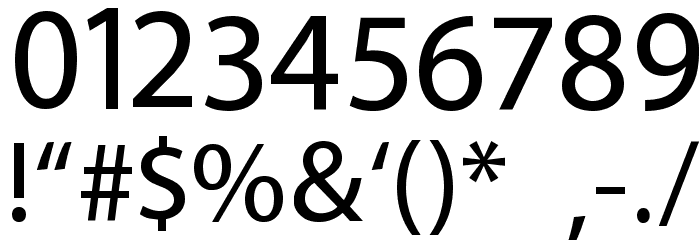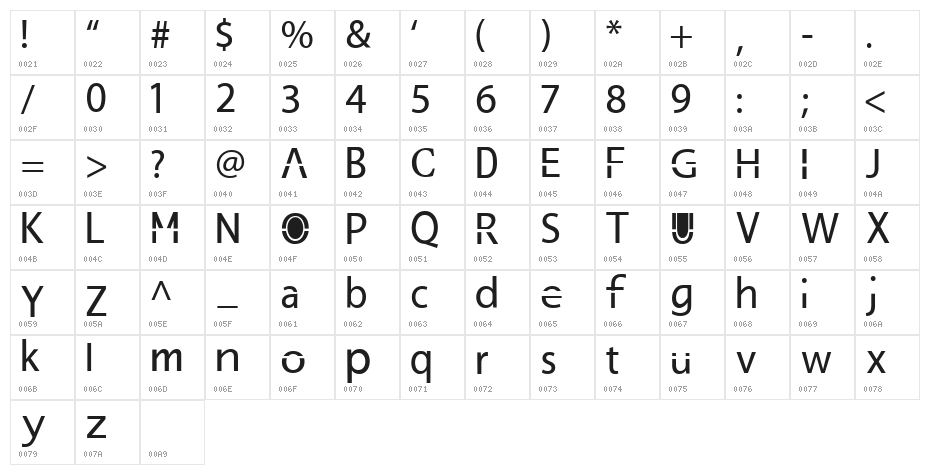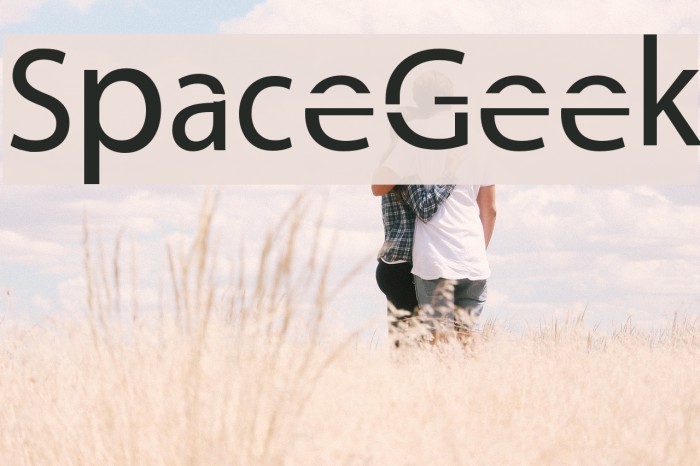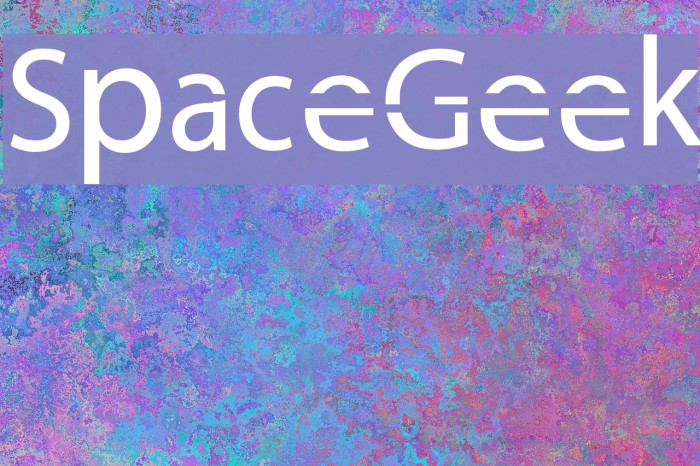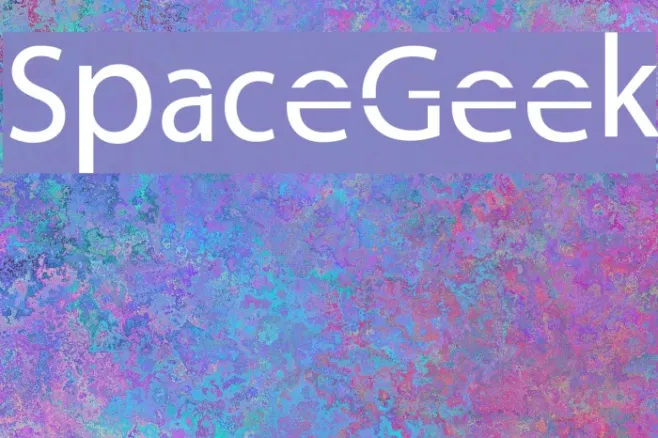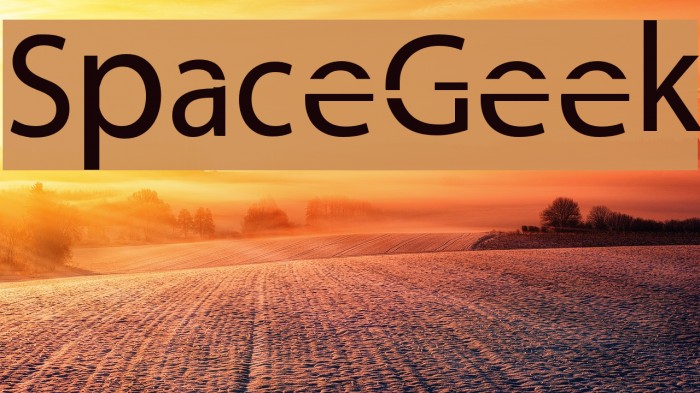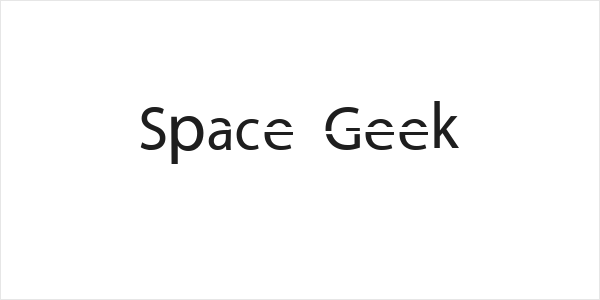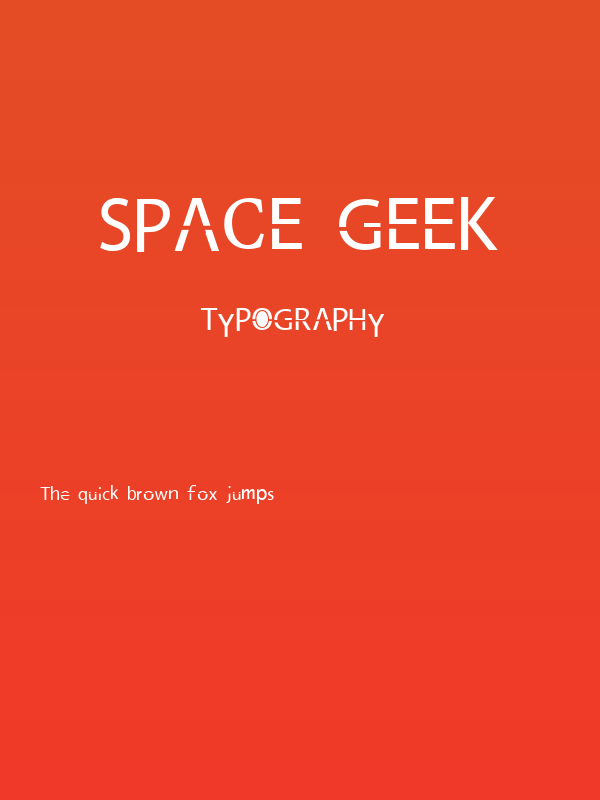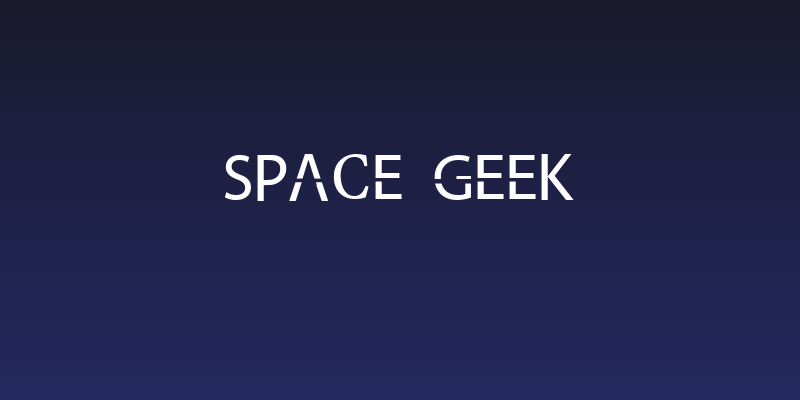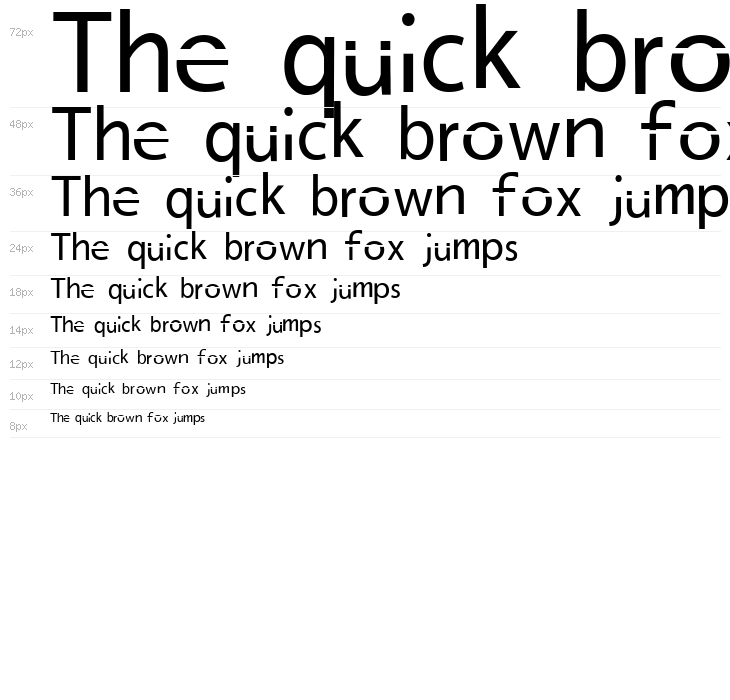
Space Geek Font
Space Geek Description
This font features a modern and futuristic design with clean, geometric lines and a minimalist aesthetic. The uppercase letters are bold and striking, with unique cutouts and angles that give them a distinctive look. The lowercase letters maintain a consistent style, with rounded edges and a uniform height that complements the uppercase. Numbers are clear and easy to read, with a similar geometric style. Special characters are well-integrated, maintaining the overall aesthetic. The font's design is both functional and stylish, making it suitable for a variety of uses.
| Proposed Projects | Ideal for tech branding, sci-fi themed projects, modern posters, and digital interfaces. |